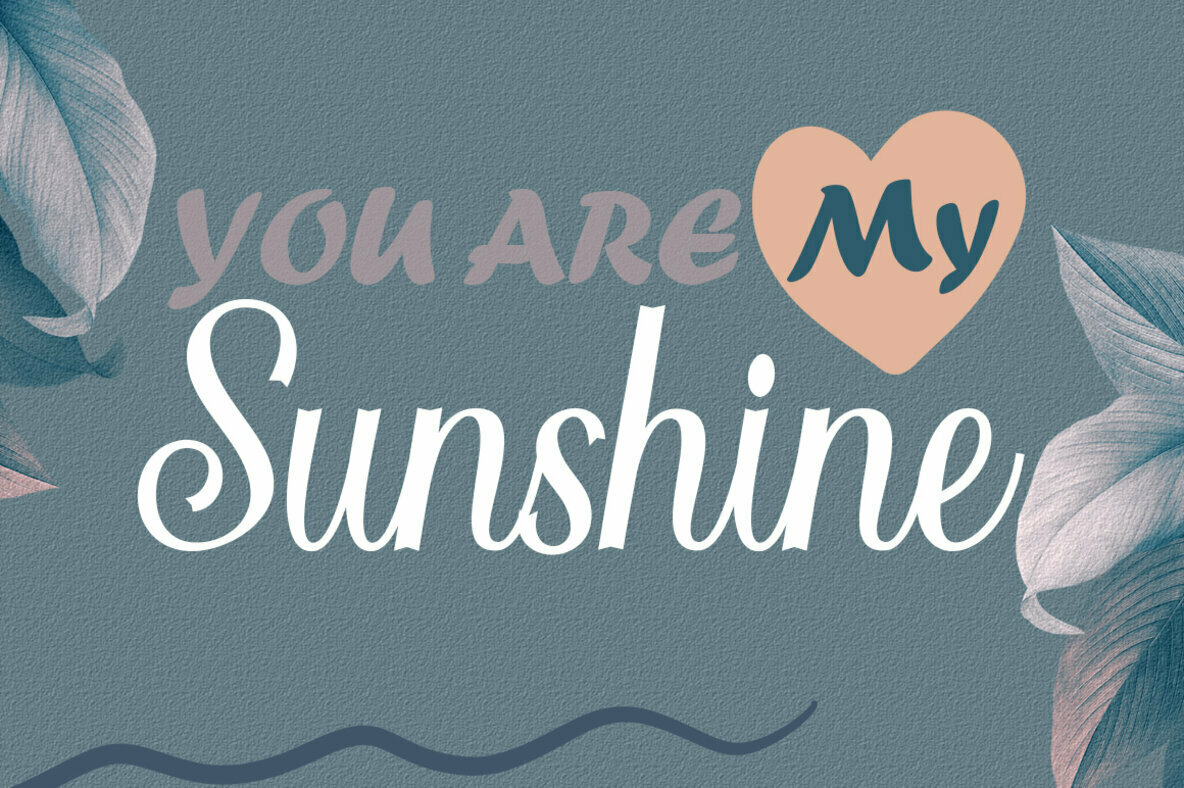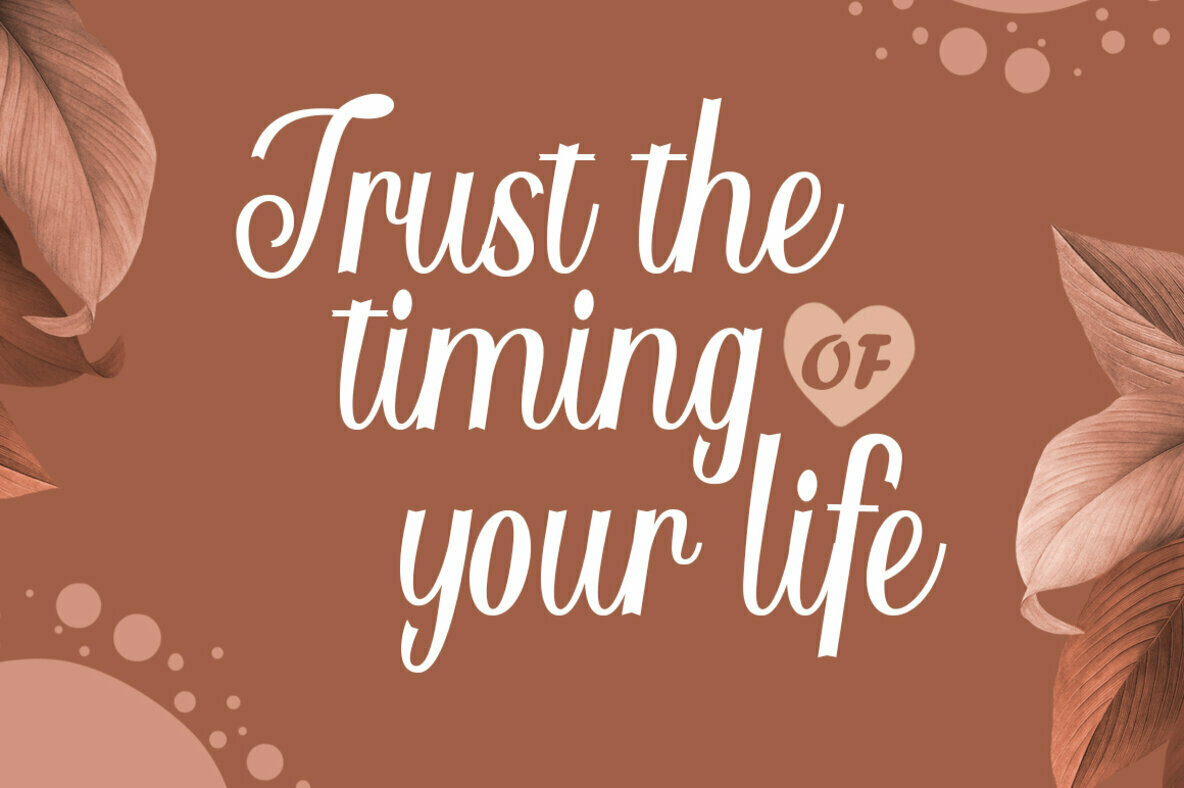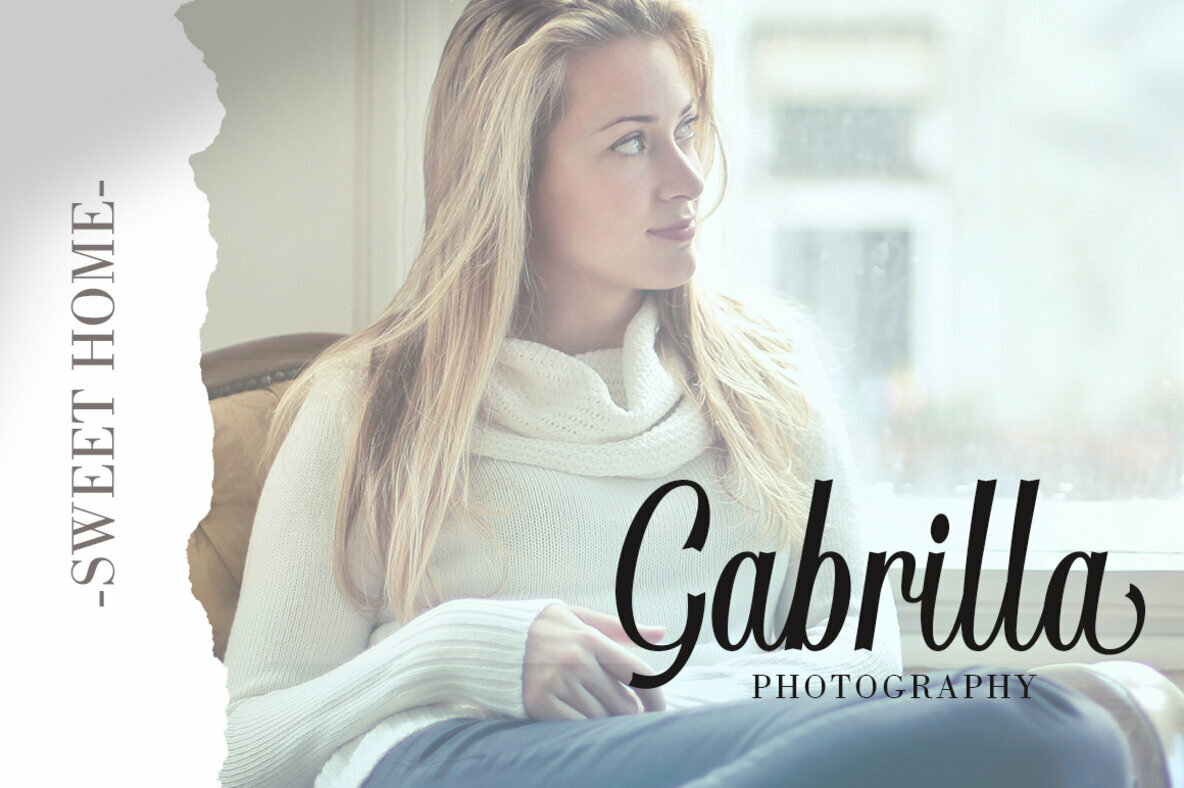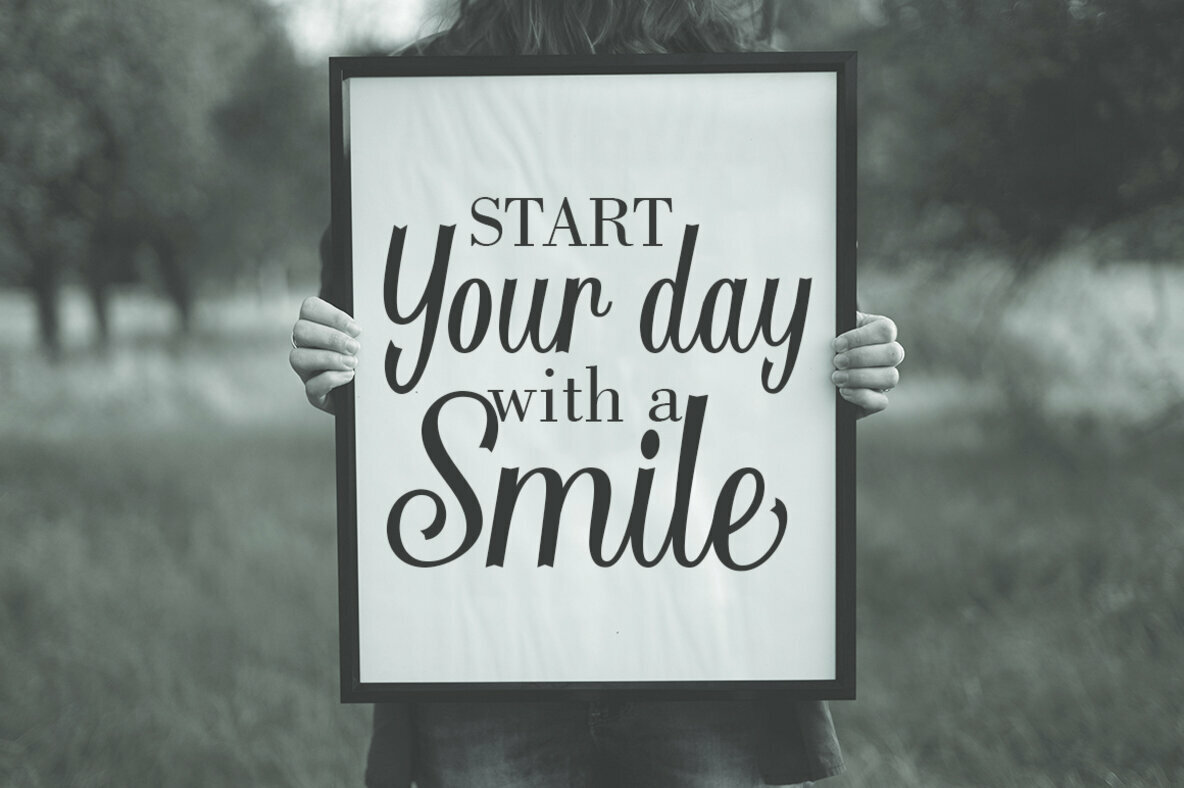
Clara Bonitta Font
Clara Bonitta
Clara Bonitta Script offers a modernized take on classic calligraphy, merging a vintage charm with sleek contemporary design. Its fluid baseline and subtle elegance make it an ideal choice for a myriad of applications, from striking headings and sophisticated signatures to branding logos and exquisite wedding invitations.Clara Bonitta: Vintage Calligraphy with Contemporary Flair